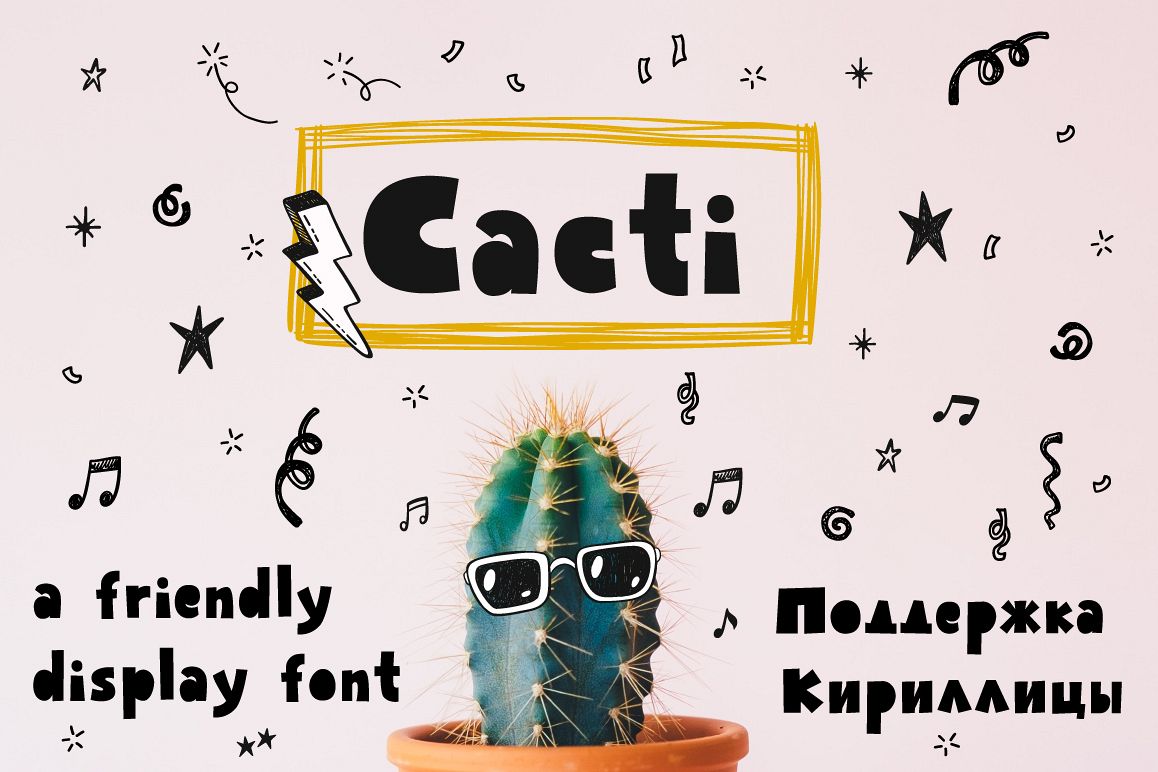
Cacti display font
Cacti is a simple and funny display font. Cacti is the great choice for headline, kids friendly design, t-shirt, quote, prints and poster, blog header and many other design project. It can be used for personal or commercial projects, in logos, on items for purchase with unlimited sales. Latin and Cyrillic languages support.